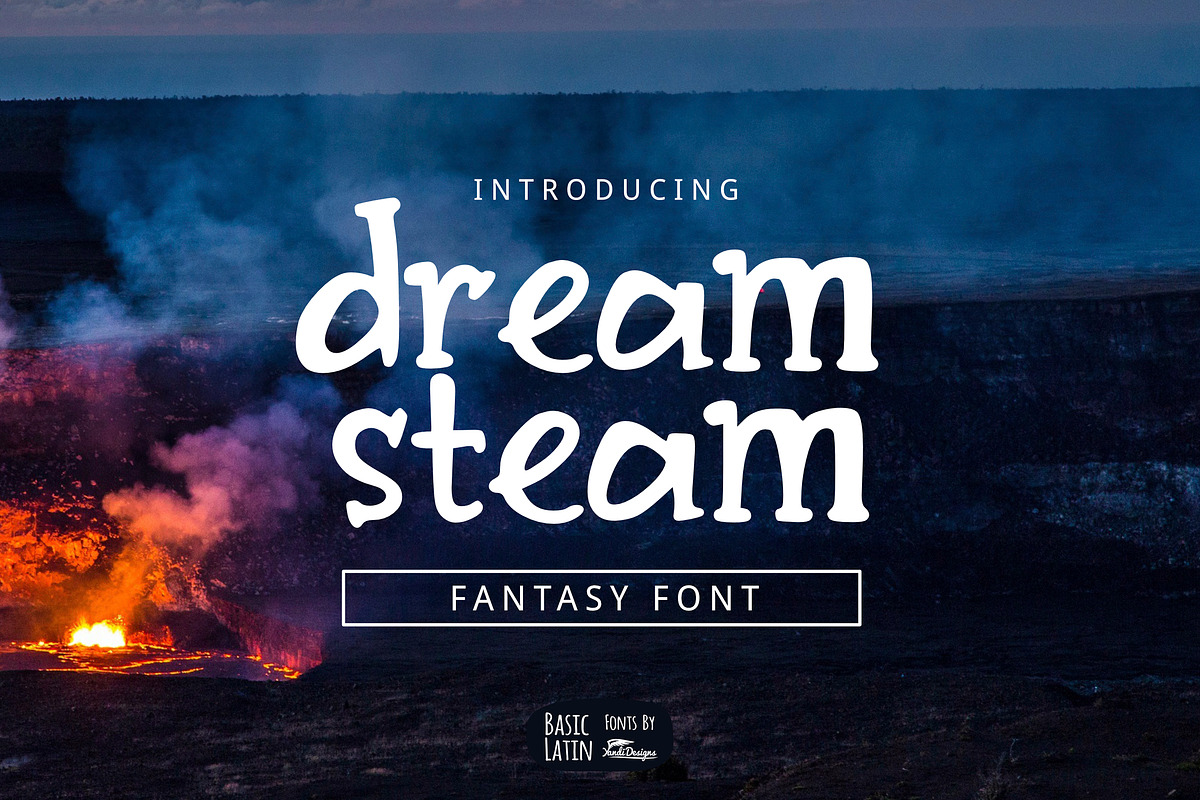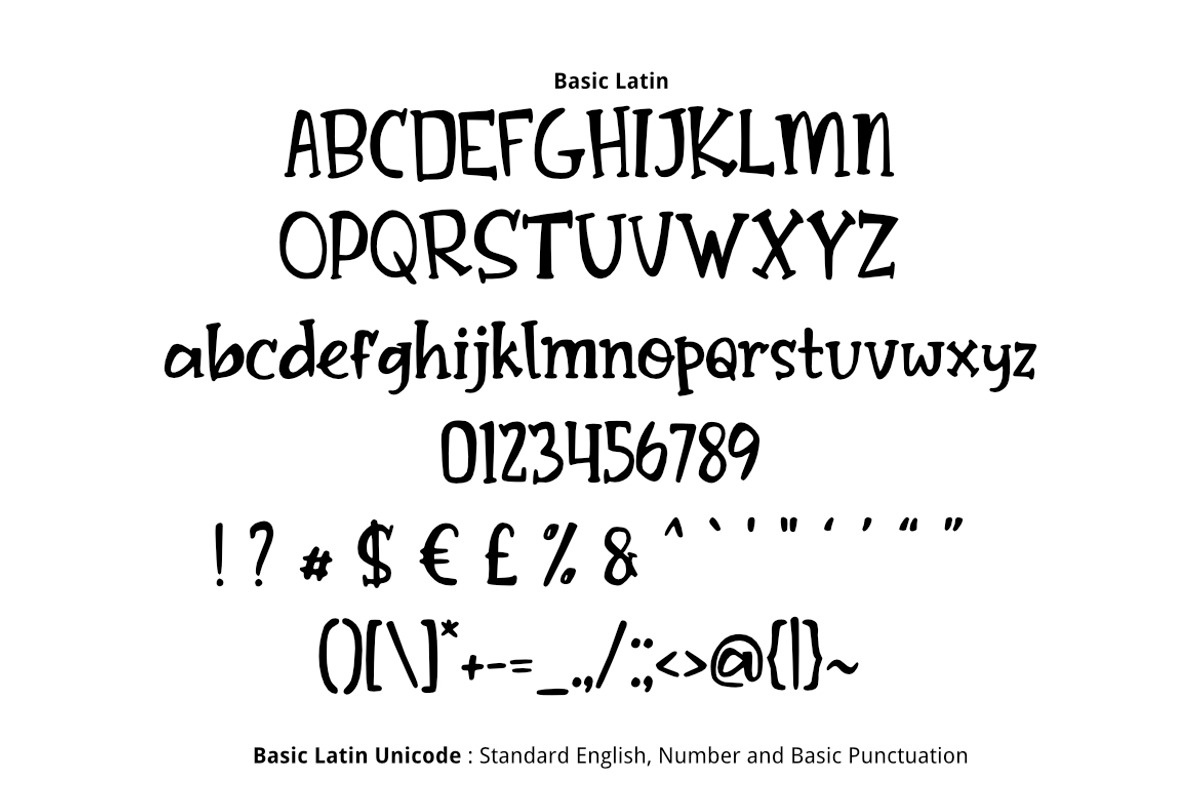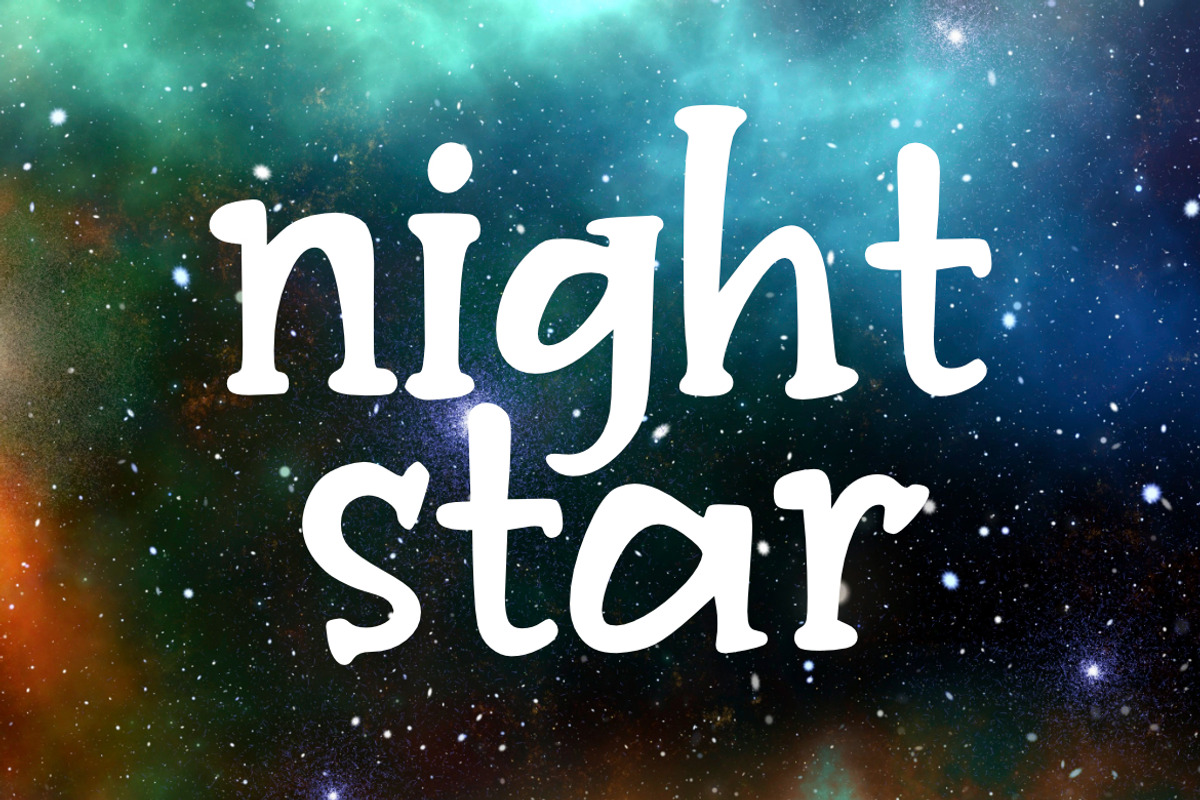
Dream Steam Font (70% OFF)
Dream Steam font is simple cute multipurpose handmade font , suitable for many project children book, quotes, logo , heading , title etc.
Dream Steam Font (70% OFF) by YandiDesigns fits naturally into Branding, posters, packaging, typography.